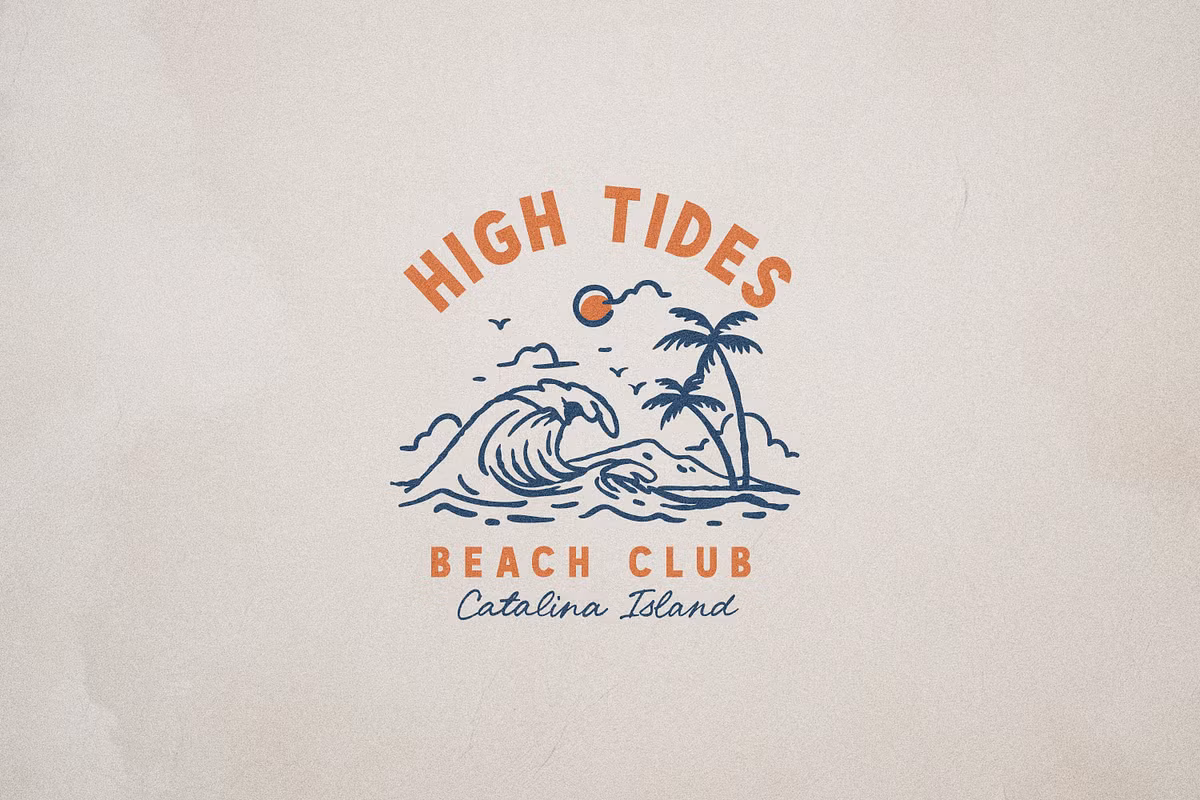
California Dreaming Script & Sans: Hand-Drawn Font Duo for Creative Design
Introduction to California Dreaming
Meet California Dreaming, a really cool hand-drawn font pair that’s perfect for adding some personality to your projects. It’s got a simple, sans serif font that comes in four different versions, including one with a special SVG format. And to make it even more interesting, it’s paired with a script font that looks like it was written on a piece of old paper. The idea behind California Dreaming is to help you be creative and come up with new ideas. You can use it for all sorts of things, like making headlines, designing book covers, creating greeting cards, or even just posting on social media. This font pair is really versatile, so it’s sure to make your designs stand out!
Design Style of California Dreaming
California Dreaming has a special look that’s pretty and warm. It’s like something you’d draw by hand, which makes it feel cozy and inviting. The fancy writing font is nice and flowing, like when you write something by hand. This makes it perfect for projects where you want to add a personal touch. The other font, the one without the fancy edges, is simple and clean, which helps balance out the playful feel of the fancy font.
When you put these two styles together, it creates a whole new world of possibilities. You can use the fancy script font to make titles and headlines really stand out, and the simple sans serif font as a clean background for the main text or smaller notes. The way the light and textured parts work together is really nice to look at, and it feels both fresh and welcoming.
Character Sets and Language Support
California Dreaming has a lot to offer, especially when it comes to its characters. With over 100 handwritten alternates and ligatures, you can really make your text stand out. This is a big deal for designers who want to create something truly unique. They can play around with the font to get the perfect look, which is really important for making a lasting impression. The flexibility of California Dreaming is one of its best features, giving designers the freedom to experiment and come up with something amazing. Whether you’re working on a big project or just want to add some personality to your text, this font has got you covered.
California Dreaming is a great font for projects that need to reach people who speak different languages. It works with many languages, like Afrikaans, French, Spanish, German, Italian, and Welsh. This makes it perfect for international projects or brands that want to connect with people from all over the world. Because it supports so many languages, your designs can look great and be understood by a global audience.
Use Cases for California Dreaming
The versatility of California Dreaming makes it suitable for a multitude of use cases. Here are some ideas to get you started:
- Headlines & Taglines: The script font adds a touch of elegance to any headline or tagline, making it ideal for marketing materials.
- Book Covers: Use a beautiful script font for the title to create an inviting and artistic look that catches the eye.
- Greeting Cards & Postcards: The personal touch of the hand-drawn font makes it perfect for heartfelt messages.
- Social Media Graphics: Capture attention on platforms like Instagram or Facebook by using California Dreaming for quotes or promotional posts.
- Product Labels & Stickers: The unique style of the fonts can enhance product packaging, making your items more appealing to consumers.
When working with California Dreaming, consider how the fonts can complement each other. Here are some pairing suggestions:
- California Dreaming Script with California Dreaming Sans: Use the script for prominent text and the sans serif for supporting details to create a harmonious design.
- California Dreaming Sans Italic: Add an italicized version to your designs for emphasis, especially on words you want to highlight within a sentence.
- California Dreaming Sans Rounded: A softer version perfect for friendly and approachable designs.
- California Dreaming Sans SVG: Incorporate the SVG version to add texture to your designs.
So you should know that the California Dreaming Script and SVG have a unique, hand-drawn look with a textured feel. This is what makes them special, but it also means they might not work well with certain cutting machines like Cricut or Silhouette.
California Dreaming is a really cool font set that can add a lot of style to your projects. It’s got a nice mix of a handwritten look and a classic simple font, which makes it perfect for all sorts of things like ads, posters, and even just personal stuff. The best part is that it’s got a huge set of characters, supports lots of languages, and is easy to pair with other fonts, which is great for designers who want to give their work a personal touch. Whether you’re making a book cover, a card, or just something fun, California Dreaming can help you be creative and make your designs stand out. It’s a great choice for anyone who wants to add a little something extra to their work. With its unique look and versatility, you can use it for lots of different things and still make it look amazing. So, if you’re looking for a font that can help you make your projects special, California Dreaming is definitely worth checking out.